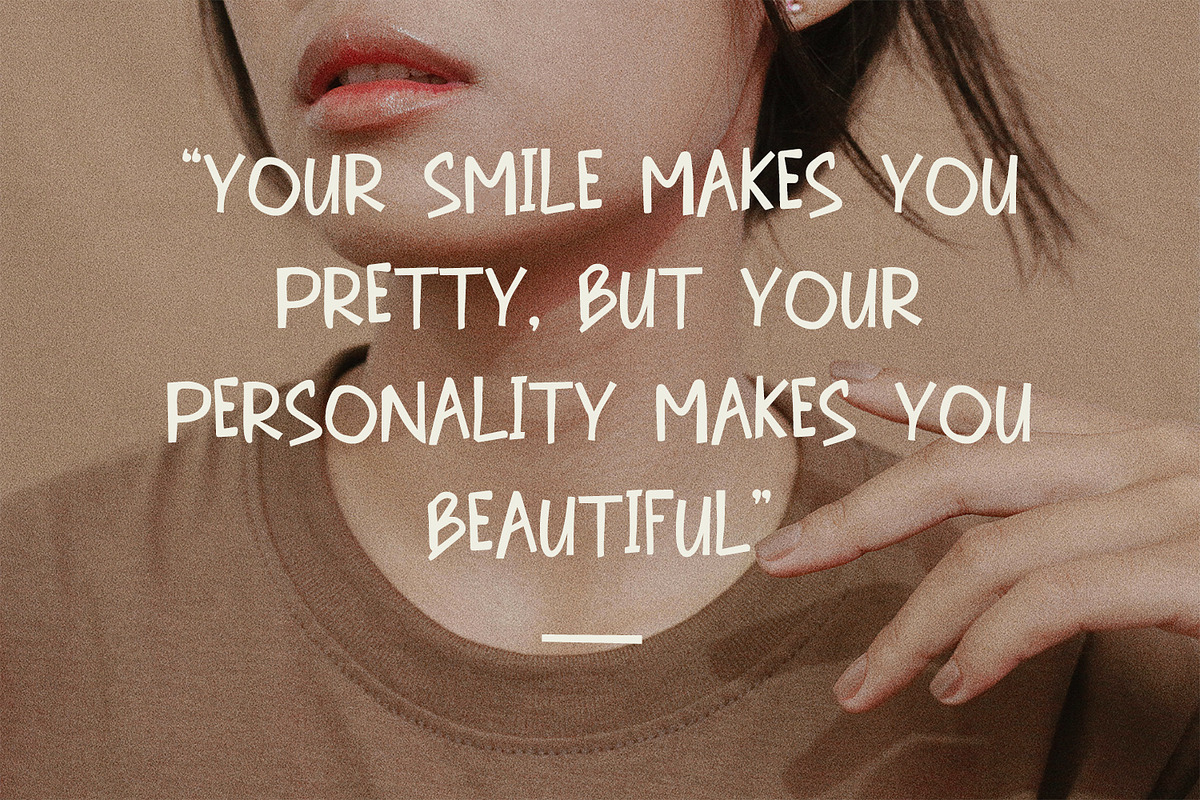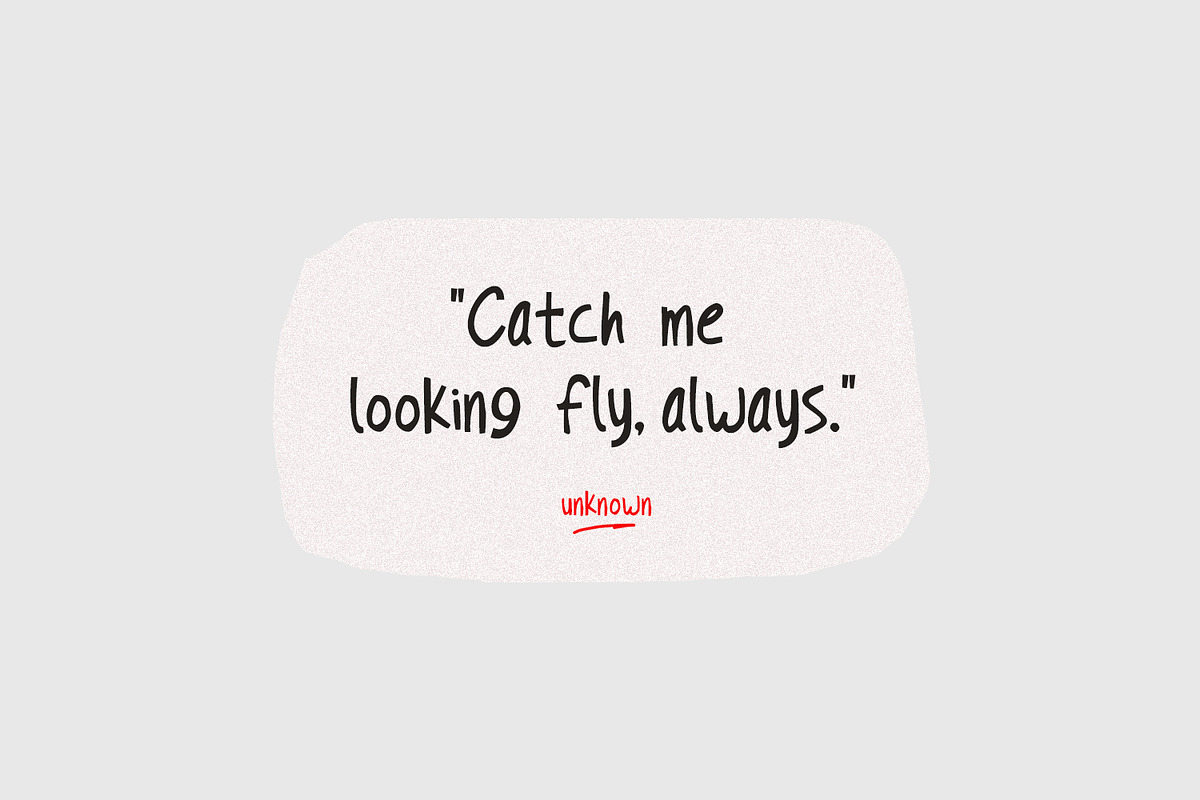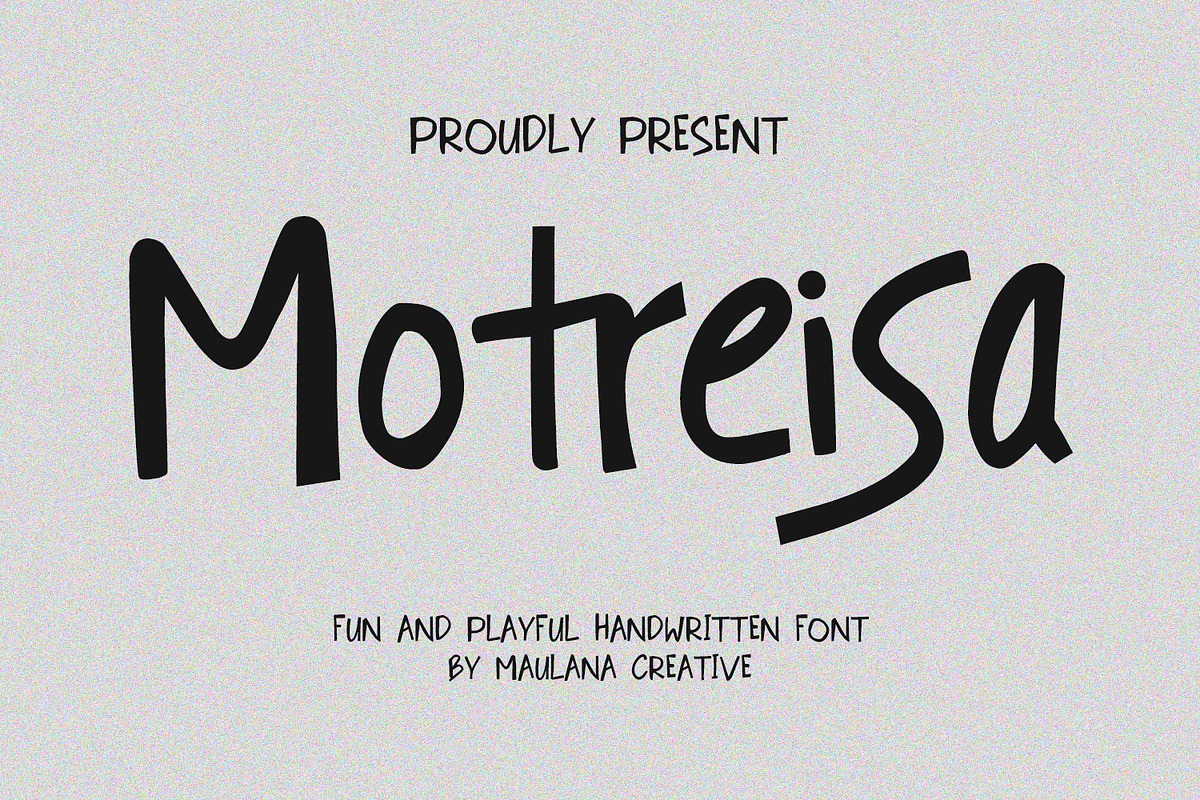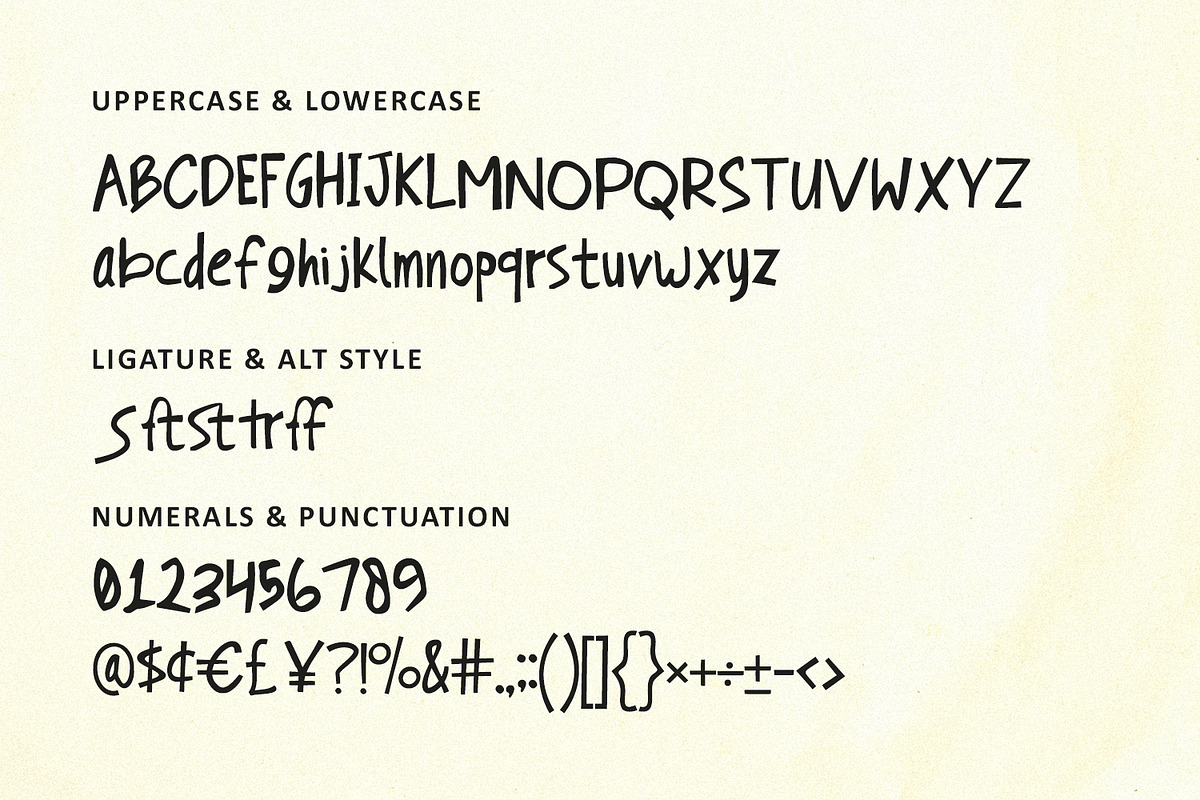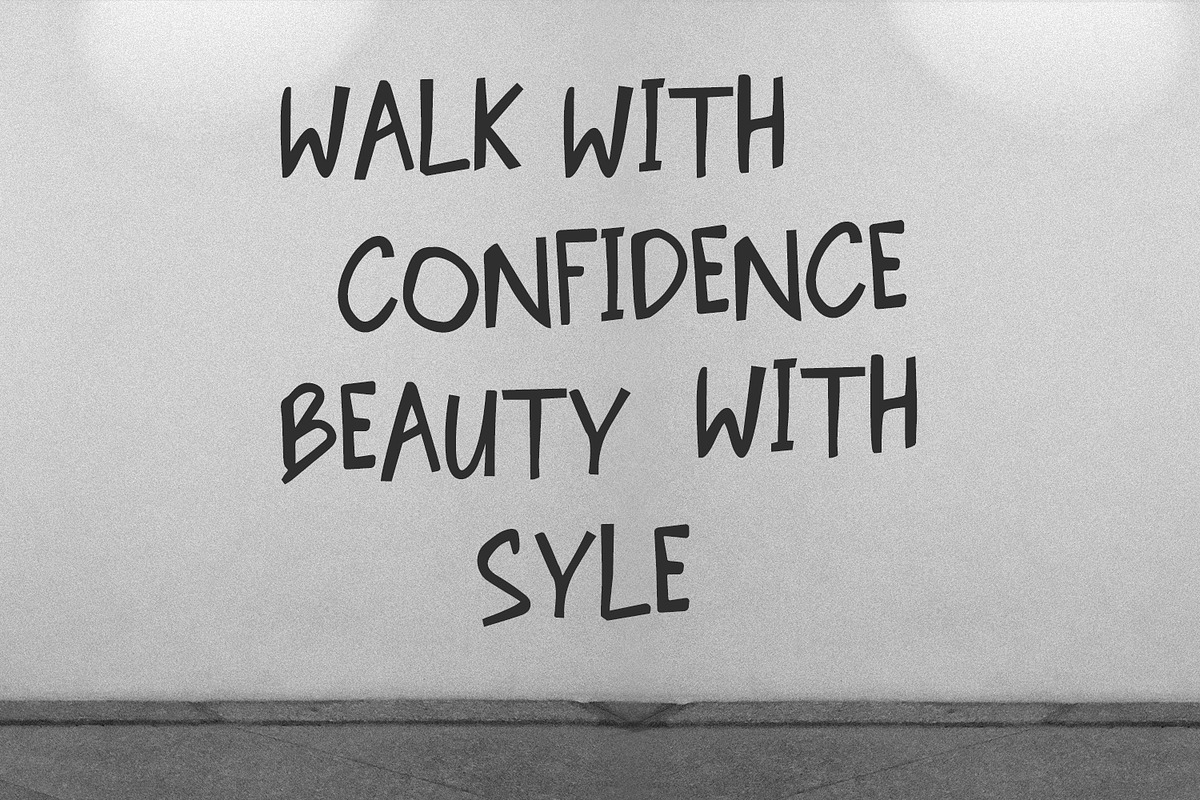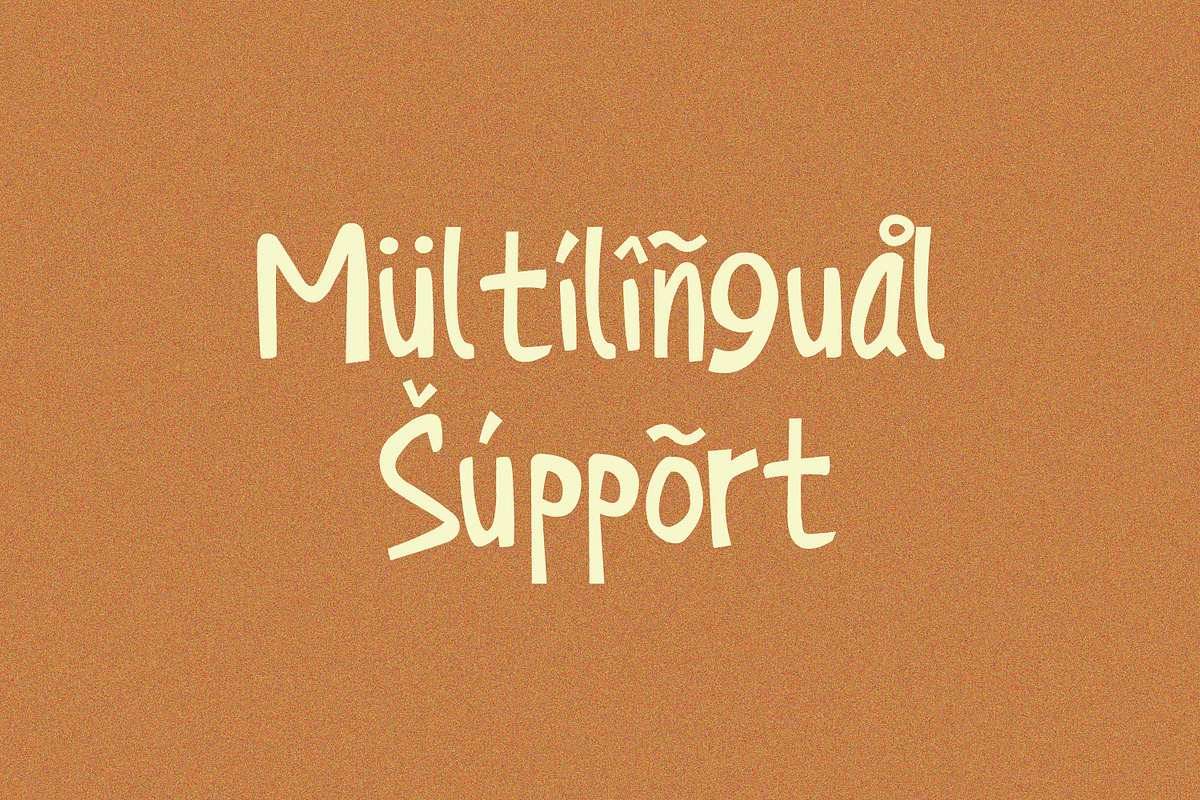
Motreisa Fun Playful Handwritten
Motreisa is a fun and playful handmade display font. With cartoon vibes or notes, had a fun character with a bit of ligatures. To give you an extra creative work. Motreisa font support multilingual more than 100+ language. This font is good for logo design, Social media, Movie Titles, Books Titles, a short text even a long text letter and good for your secondary text font with sans or serif. Make a stunning work with Motreisa font.